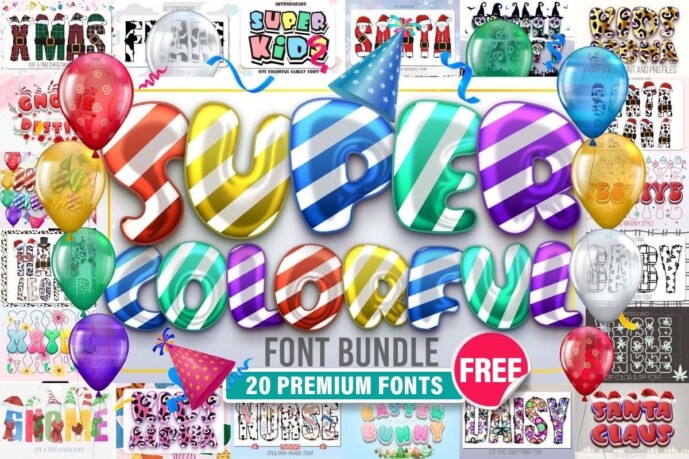
Super Colorful Font Bundle
Super Colorful Font Bundle, featuring 20 playful and creative fonts perfect for crafting projects. Add a jolly touch to your designs!